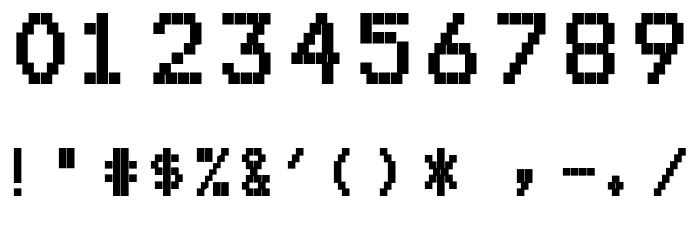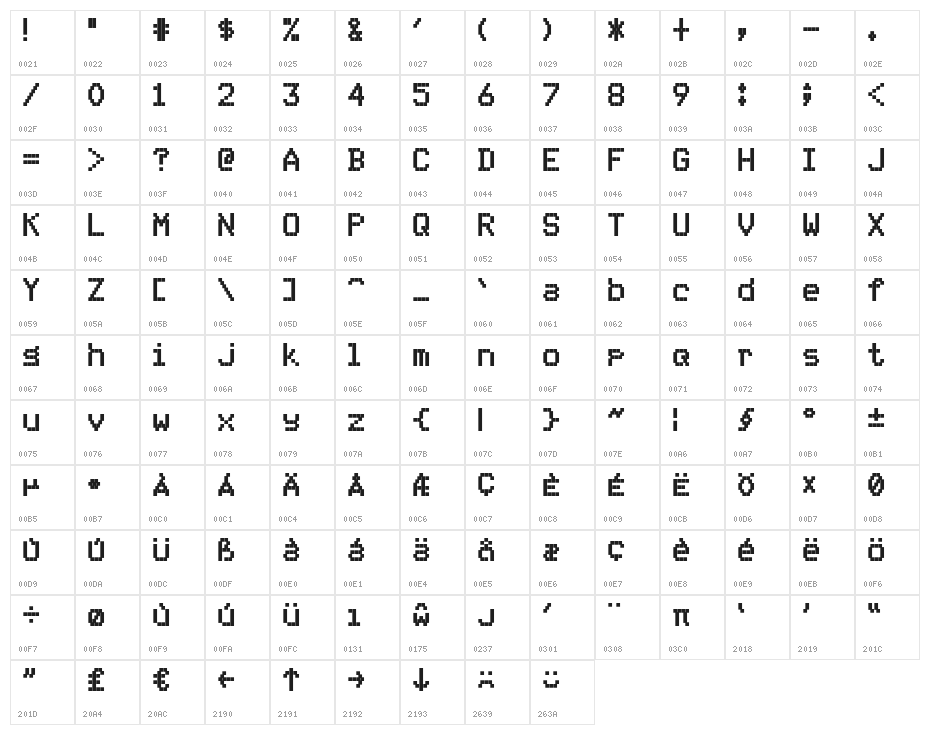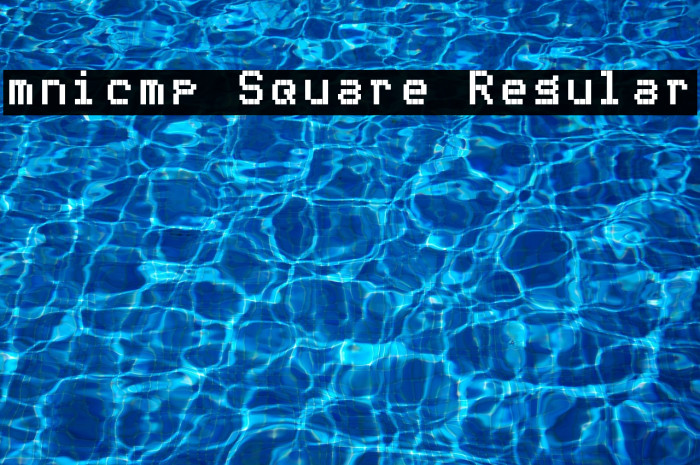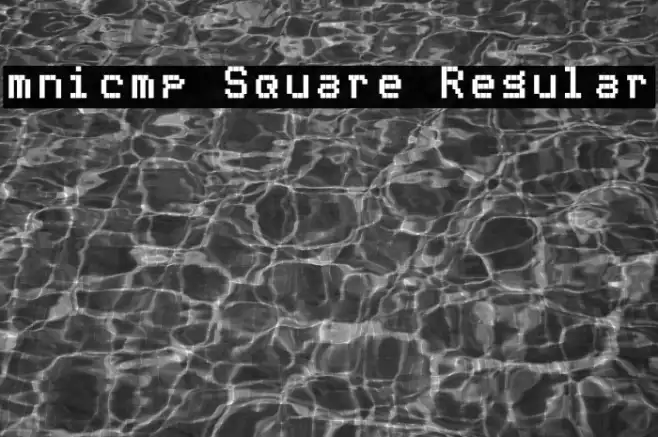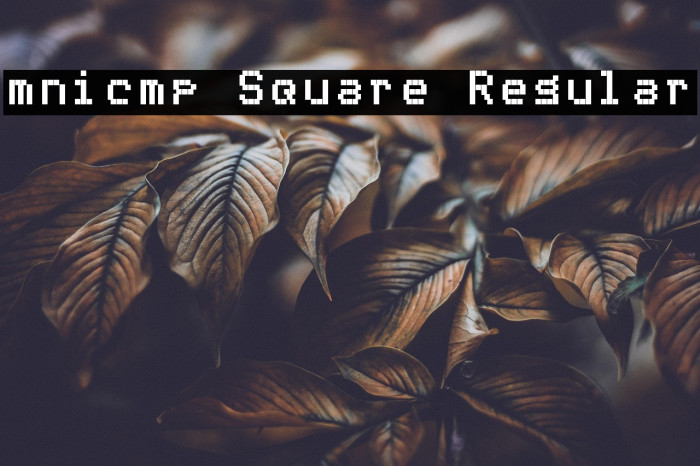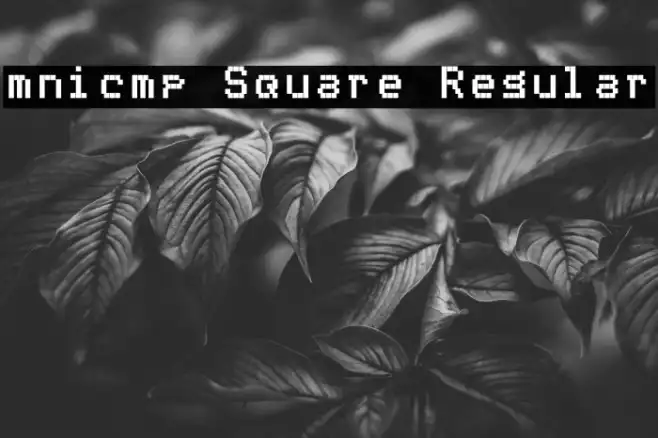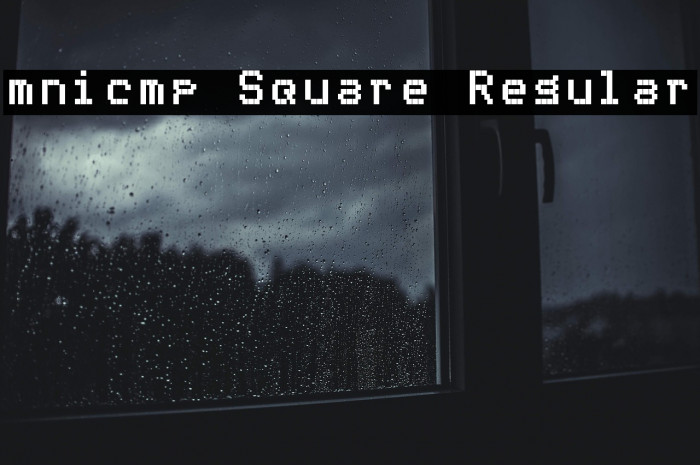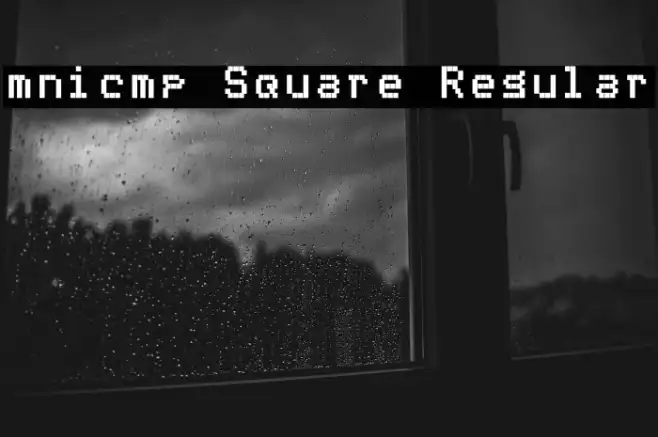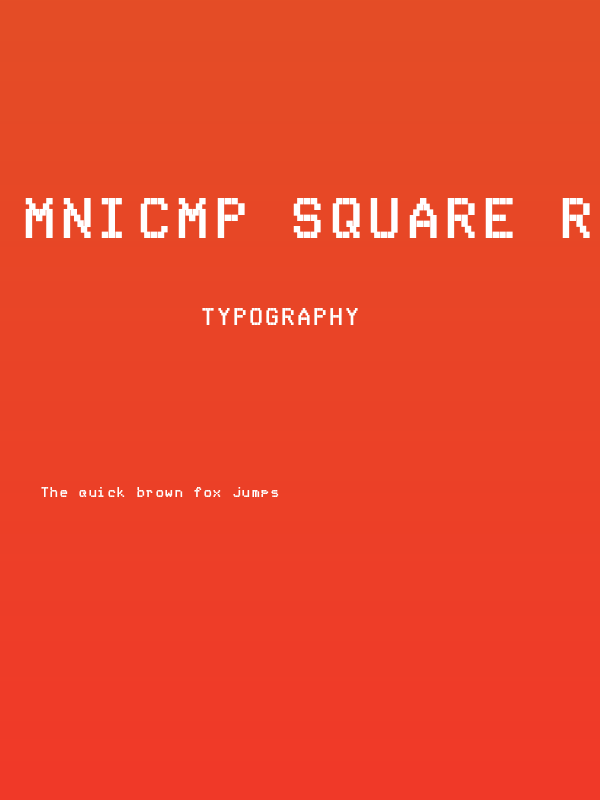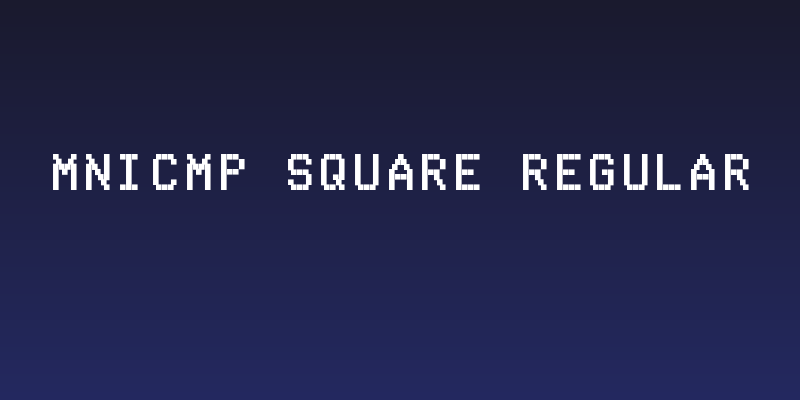
mnicmp Square Regular Font
mnicmp Square Regular Description
This font features a distinct pixelated style, reminiscent of early digital displays and retro video games. Each character is composed of small square blocks, giving it a unique, blocky appearance. The uppercase and lowercase letters maintain a consistent height, while the numbers and special characters are designed to match the overall aesthetic. The font's geometric structure and uniformity make it ideal for projects that aim to evoke a sense of nostalgia or a digital theme. Its clear and legible design ensures readability even at smaller sizes.
| Use Case | Headlines, Logos, Digital displays |
| Proposed Projects | Ideal for video game design, digital art projects, retro-themed posters, and any creative work that requires a nostalgic or digital aesthetic. |